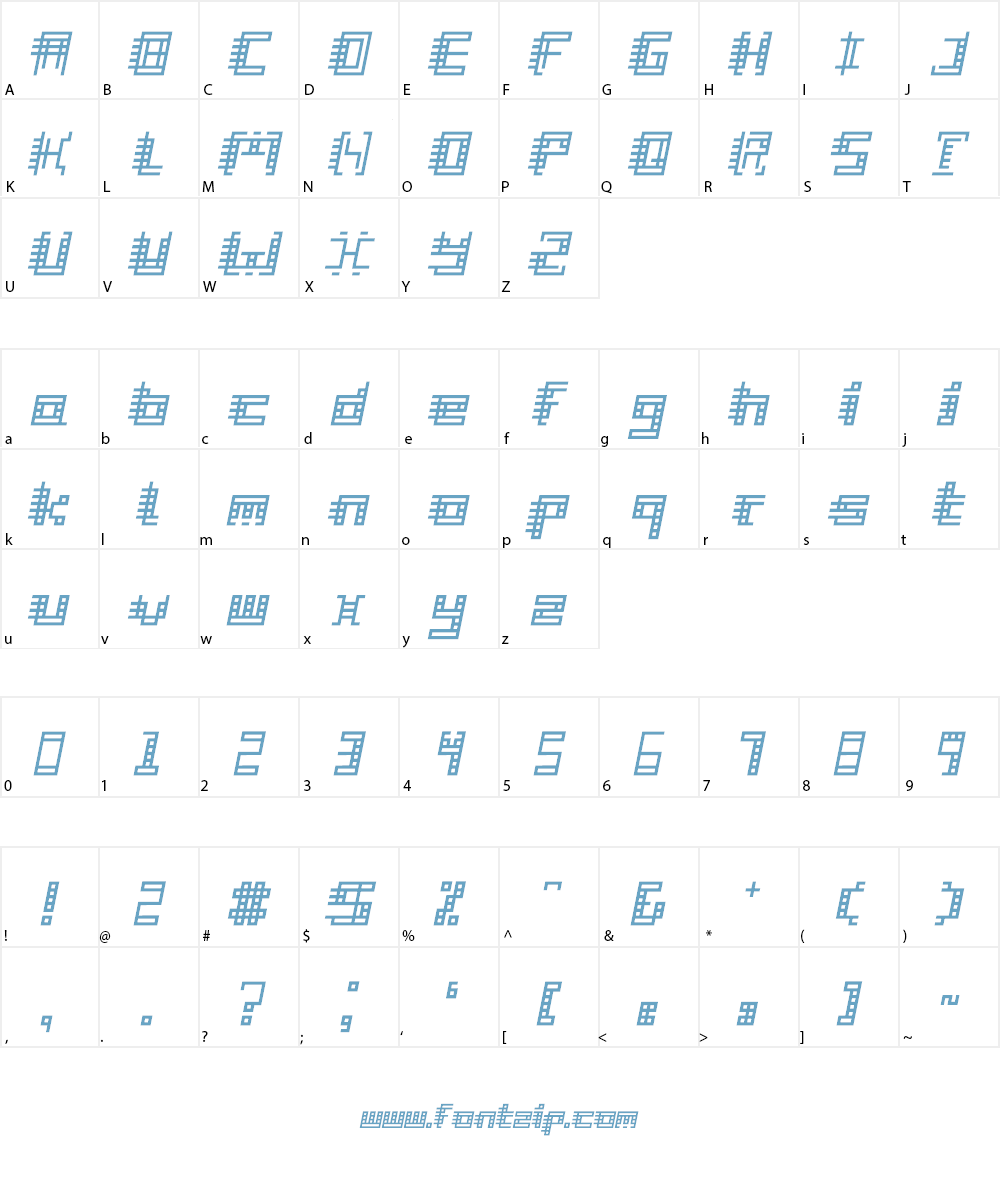
Gridli is a display typeface that utilities a standard, simple grid-system that is losely based on the chords of a guitar. Gridli comes in 4 variants - regular, italic, bold, bold-italic, and incorporates a full, standard Latin typeset, including lowercase, uppercase, accented characters, punctuation, figures and currency.